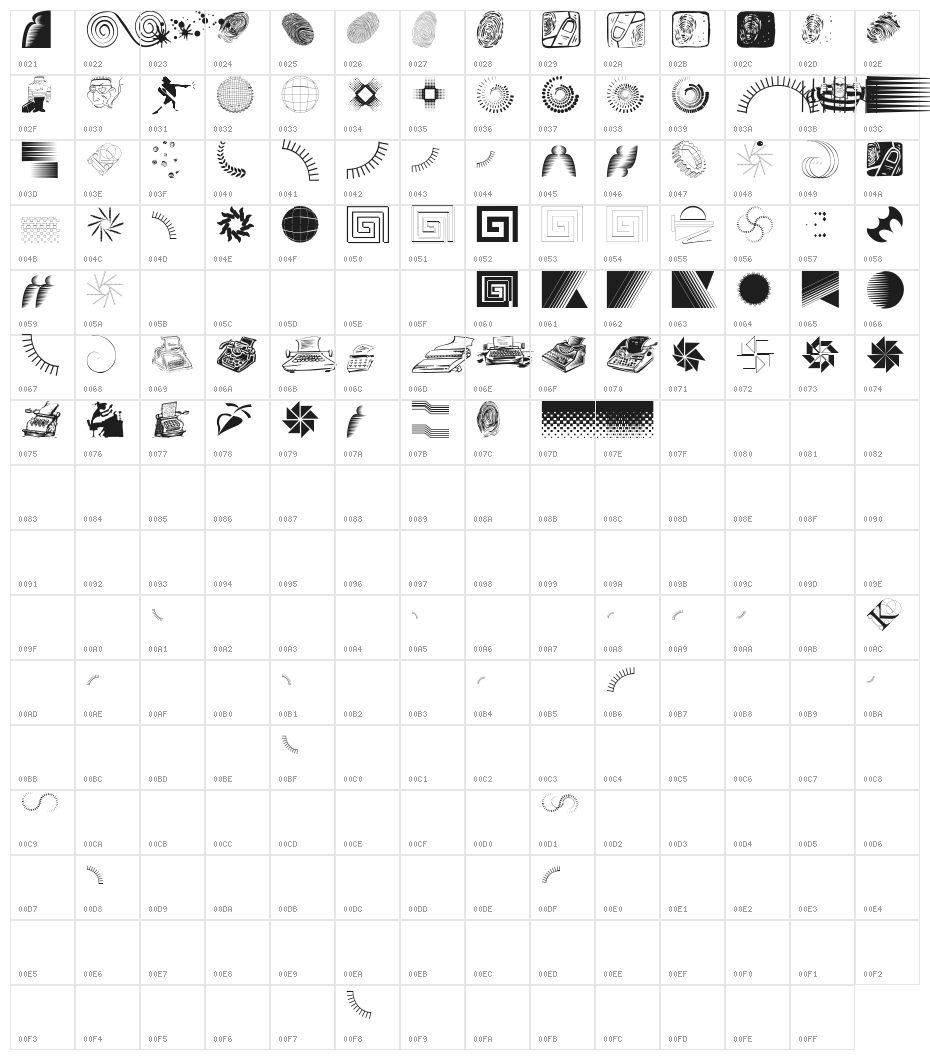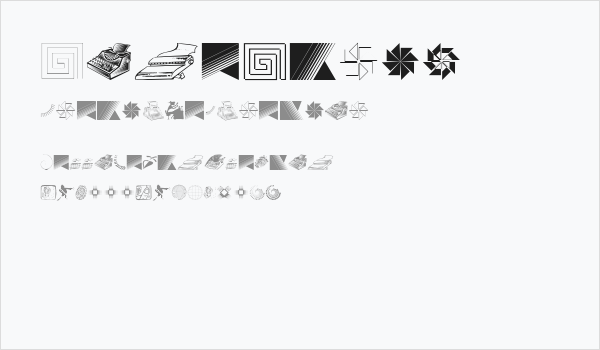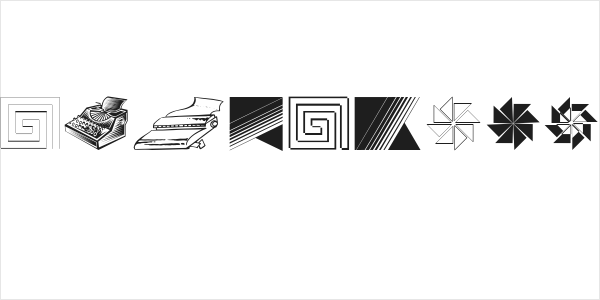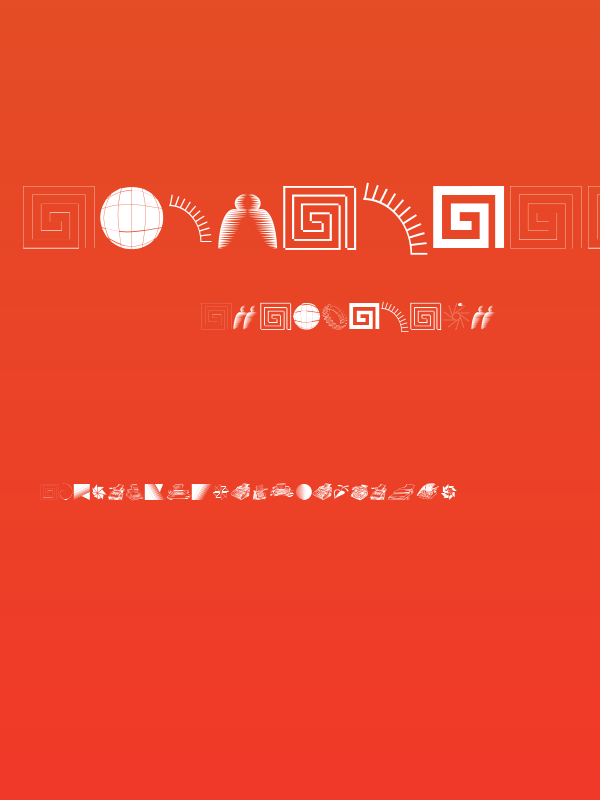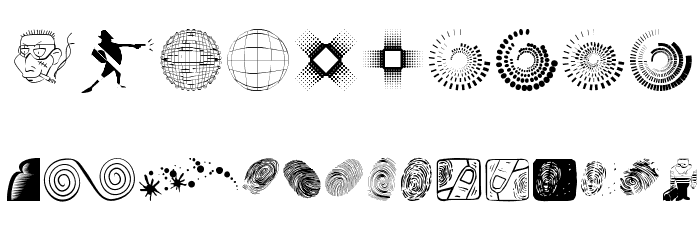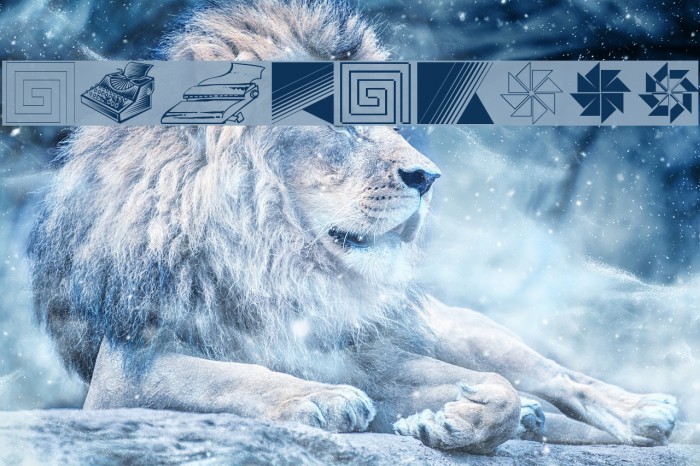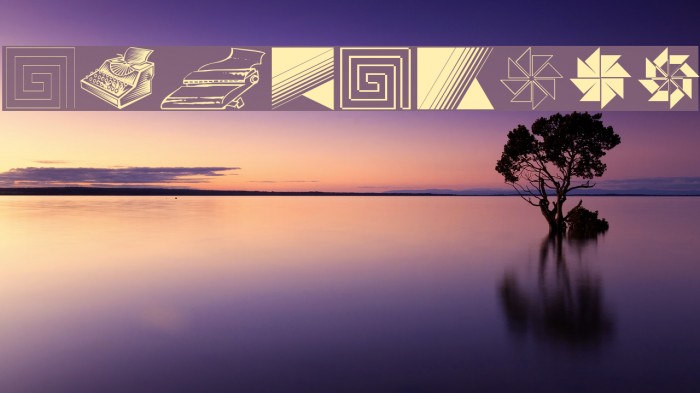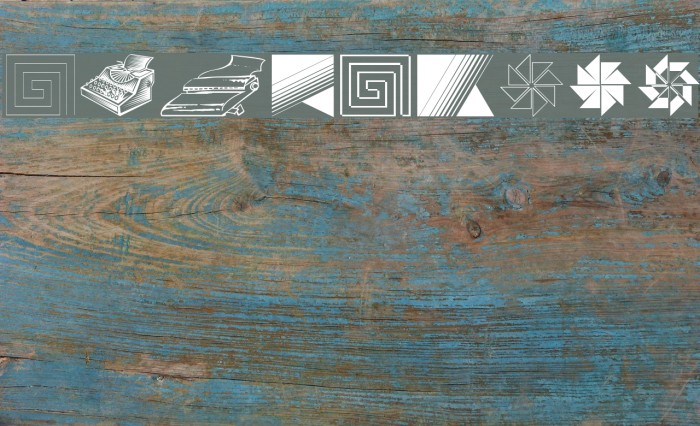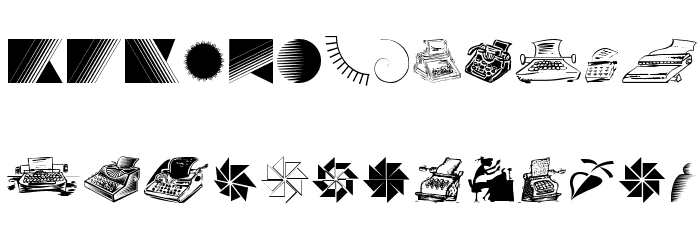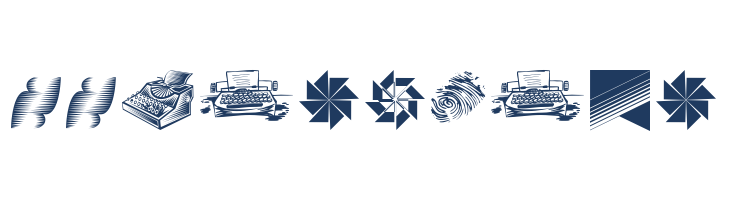
SomeParts Font
SomeParts Description
A decorative dingbat and symbol set featuring a variety of abstract shapes, spirals, geometric patterns, typewriters, fingerprints, and illustrative motifs. The glyphs are highly detailed, mostly monochrome, and range from mechanical to organic forms, making them suitable for visual accents rather than text.
| Overall Style | Decorative, Eclectic, Illustrative |
| Use Case | Accents, Borders, Icons, Decorative elements |
| Proposed Projects | Posters, flyers, scrapbooking, branding accents, digital collages, creative layouts, and illustrative dividers. |